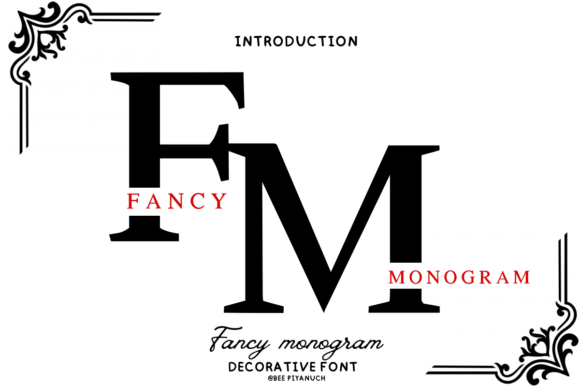
Fancy Monogram Font: Elevate Your Creativity with Elegance
In the realm of typography, few fonts manage to capture the essence of elegance and charm as effectively as the Fancy Monogram Font. This uniquely decorative font is designed to add an aesthetic touch to your creative universe, making it perfect for a wide range of applications. Whether you’re penning down thoughts in your diary, scripting notes, or crafting heartfelt greeting cards, Fancy Monogram is the ideal choice to make your content stand out.
What Makes Fancy Monogram Special?
Fancy Monogram is more than just a font; it’s an artistic expression that brings a touch of sophistication to any project. Its intricate designs and flowing curves make it a versatile choice for various creative endeavors. Here are some features that set Fancy Monogram apart:
- Unique Design: Fancy Monogram boasts a distinctive style that is both elegant and eye-catching. Its monogrammatic approach adds a personal touch to any text, making it perfect for custom designs.
- Versatility: This font is not limited to traditional uses like diary entries or greeting cards. It’s also ideal for creating captivating banners, charming stationery, and attention-grabbing merchandise.
- Readability: Despite its decorative nature, Fancy Monogram maintains a high level of readability, ensuring that your message is conveyed effectively.
Endless Possibilities with Fancy Monogram
The versatility of Fancy Monogram is one of its most compelling features. Here are some ideas to get you started:
- Diary and Journaling: Add a touch of elegance to your personal diary or journal with Fancy Monogram. It’s perfect for headings, titles, and even decorative borders.
- Greeting Cards: Create heartfelt and visually appealing greeting cards for special occasions like weddings, birthdays, or anniversaries.
- Banners and Signage: Make your banners and signage stand out with Fancy Monogram. It’s ideal for events, promotions, or informational displays.
- Merchandise: Design captivating mugs, attention-grabbing shirts, or charming cards that will leave a lasting impression.
- Social Media: Elevate your social media posts with Fancy Monogram. Use it to create engaging content that commands attention and encourages interaction.
Tips for Using Fancy Monogram Effectively
To make the most of Fancy Monogram, consider the following design tips:
- Mix and Match: Combine Fancy Monogram with other fonts to create visual interest and hierarchy in your designs.
- Use Contrast: Experiment with different colors and contrasts to make your text stand out.
- Play with Size: Vary the size of your text to create emphasis and add visual appeal.
- Add Decorations: Use Fancy Monogram’s intricate designs to add decorative elements to your projects.
Finding Inspiration with Fancy Monogram
When working with Fancy Monogram, inspiration can come from various sources. Here are a few ideas to get you started:
- Nature: Draw inspiration from natural elements like flowers, leaves, or water to create organic and whimsical designs.
- Art and Culture: Explore different art styles, historical periods, or cultural influences to add depth and context to your designs.
- Personal Experiences: Use Fancy Monogram to express your personal style or tell a story through your designs.
In conclusion, Fancy Monogram Font is a versatile and elegant choice for any creative project. Its unique design, versatility, and readability make it an ideal font for a wide range of applications. Whether you’re a designer, artist, or simply someone looking to add a touch of elegance to your personal projects, Fancy Monogram is sure to inspire and elevate your creativity.